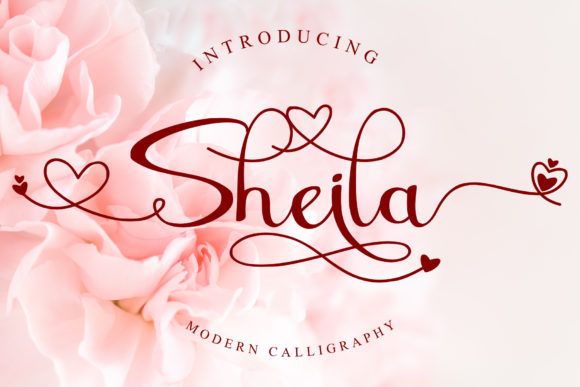
Introducing Sheila Font - Your Perfect Companion for Captivating Valentine's Designs!
Looking to add a touch of romance and elegance to your designs? Look no further than Sheila Font, a stunning script font created by andreyfontdesign. With its exquisite beauty and abundance of heart swashes, Sheila Font is the ultimate choice for anyone seeking to create mesmerizing Valentine's Day designs or any other project that demands a touch of love.
One of the most alluring features of Sheila Font is its PUA encoding. This unique attribute grants you effortless access to a wide array of captivating glyphs and swashes, allowing you to effortlessly enhance your creative endeavors. Express your emotions and amplify the romantic essence of your designs with just a few clicks.
Are you in search of the perfect font to convey heartfelt emotions? Sheila Font is the answer. Its graceful script style evokes a sense of tenderness and sophistication, making it ideal for wedding invitations, love letters, and heartfelt messages. Let your words dance across the page, elegantly narrating tales of love and affection.
The versatility of Sheila Font knows no bounds. Whether you are designing a romantic greeting card, creating social media posts, or crafting personalized gifts, this font will effortlessly elevate your creations. Embrace its enchanting curves, and watch as your designs come to life with a touch of magic.
Unlock your creativity and let Sheila Font guide your imagination. Experience the joy of designing with a font that not only captivates but also resonates with your audience. Its timeless beauty and emotional essence will leave a lasting impression on anyone who encounters your designs.
Sheila Font is more than just a collection of letters; it is an instrument of love, passion, and creativity. With every stroke, it weaves a story of romance and infatuation. Let it be the conduit through which your emotions flow, showcasing your affection and devotion to the world.
Don't settle for ordinary when you can have extraordinary. Choose Sheila Font and embark on a journey of artistic expression that will touch hearts and ignite emotions. Delve into the world of romance and create designs that leave a lasting impact.